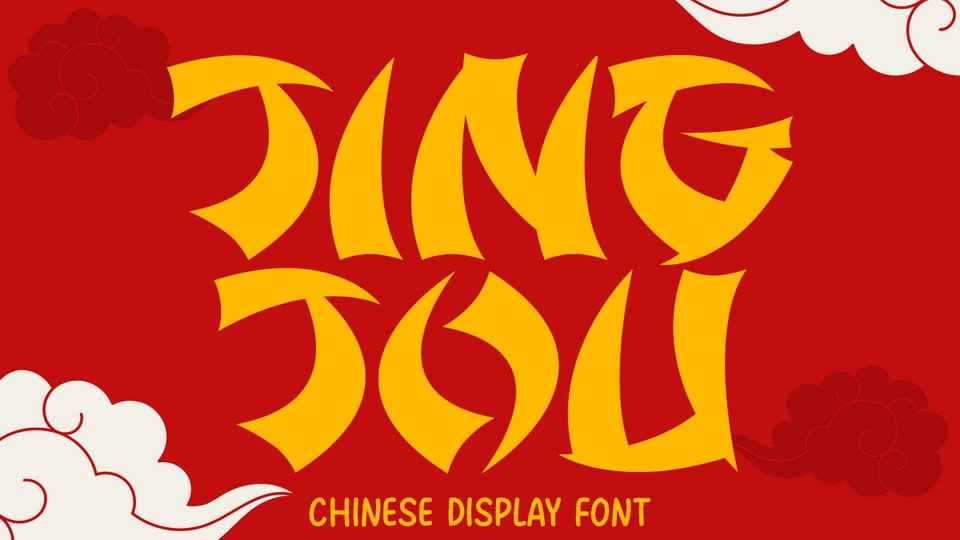
Download Jingjou font, a bold faux Japanese typeface inspired by Katakana shapes, embodying speed, energy, and modern design with its sharp, dynamic cuts.